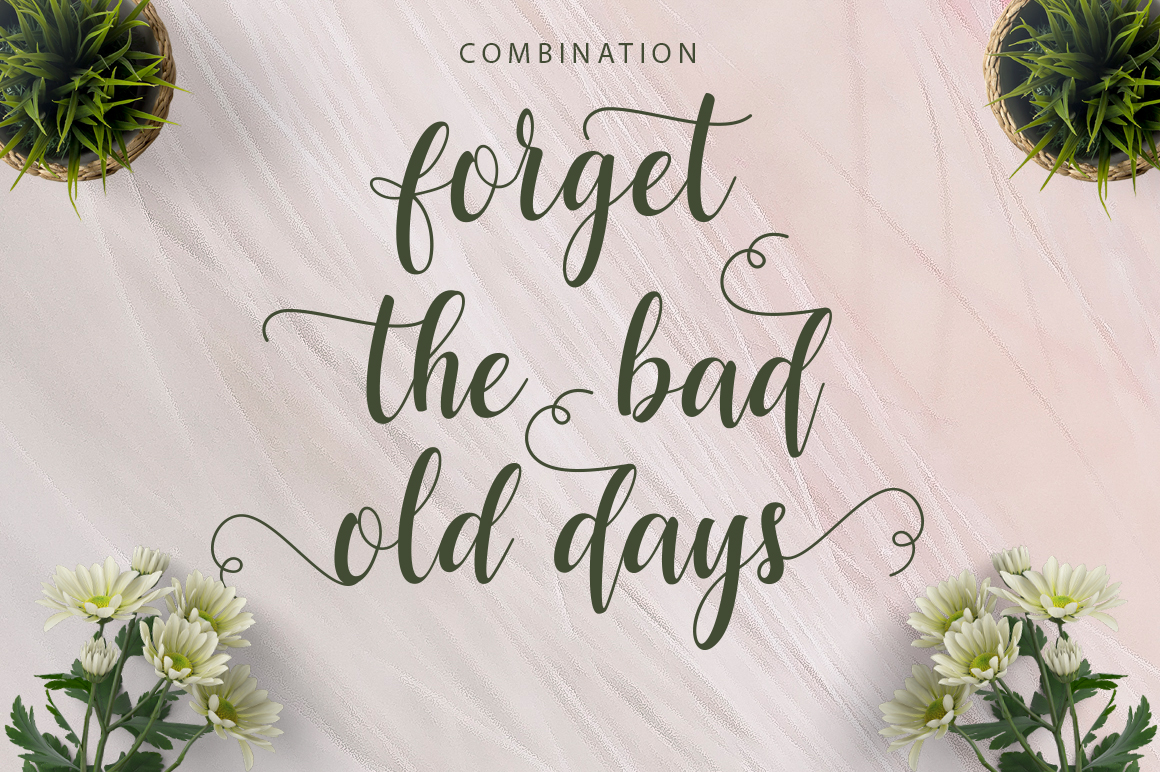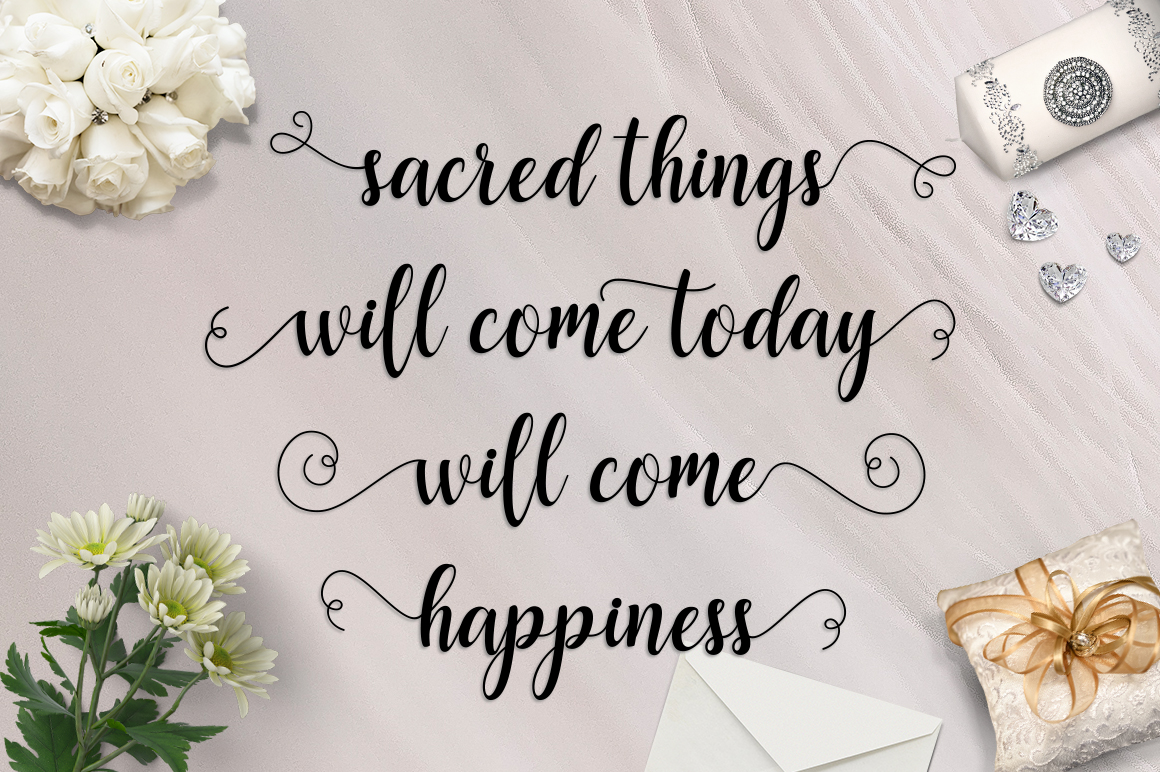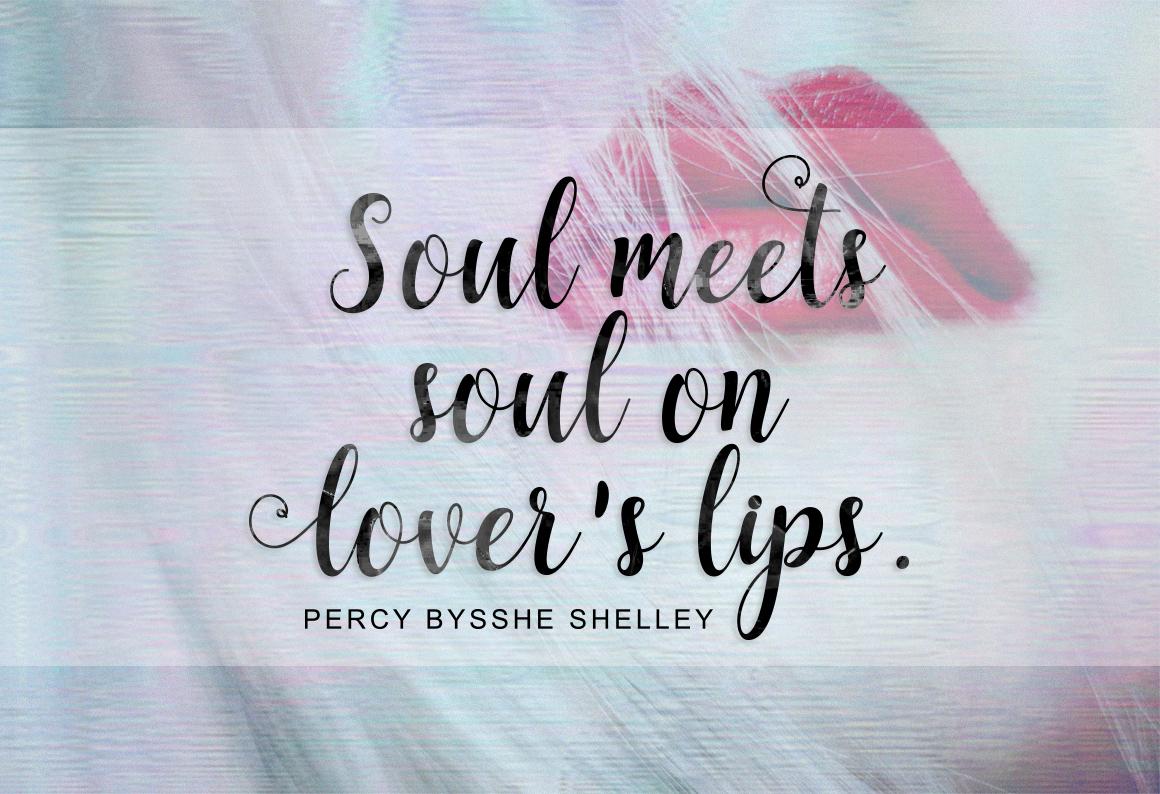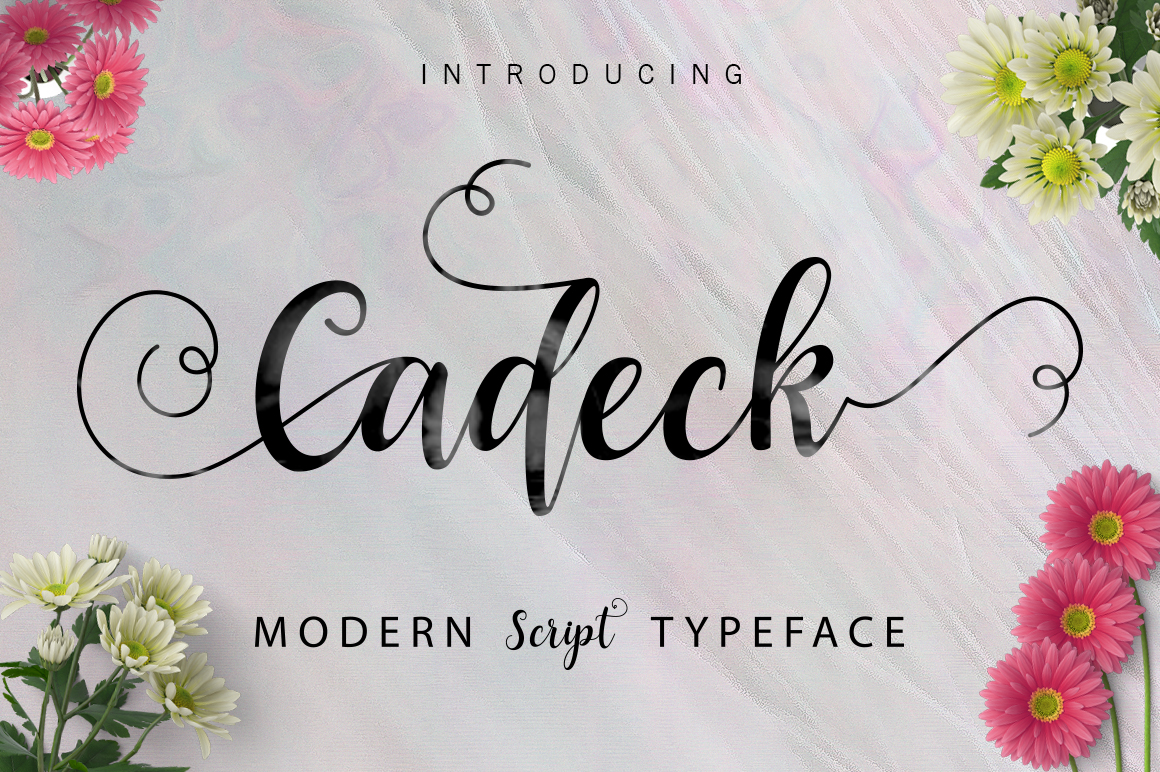
Cadeck Script Font
Cadeck Script a new fresh & modern script with a handmade calligraphy style, decorative characters and a dancing baseline! So beautiful on invitation like greeting cards, branding materials, business cards, quotes, posters, and more!!
| Designer Name: | ximents |
| Classification: | Brush Fonts, Calligraphy Fonts, Handwritten Fonts, Script Fonts |